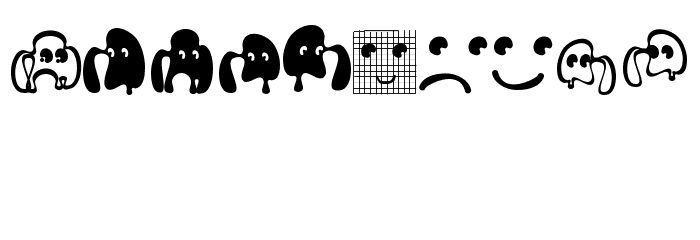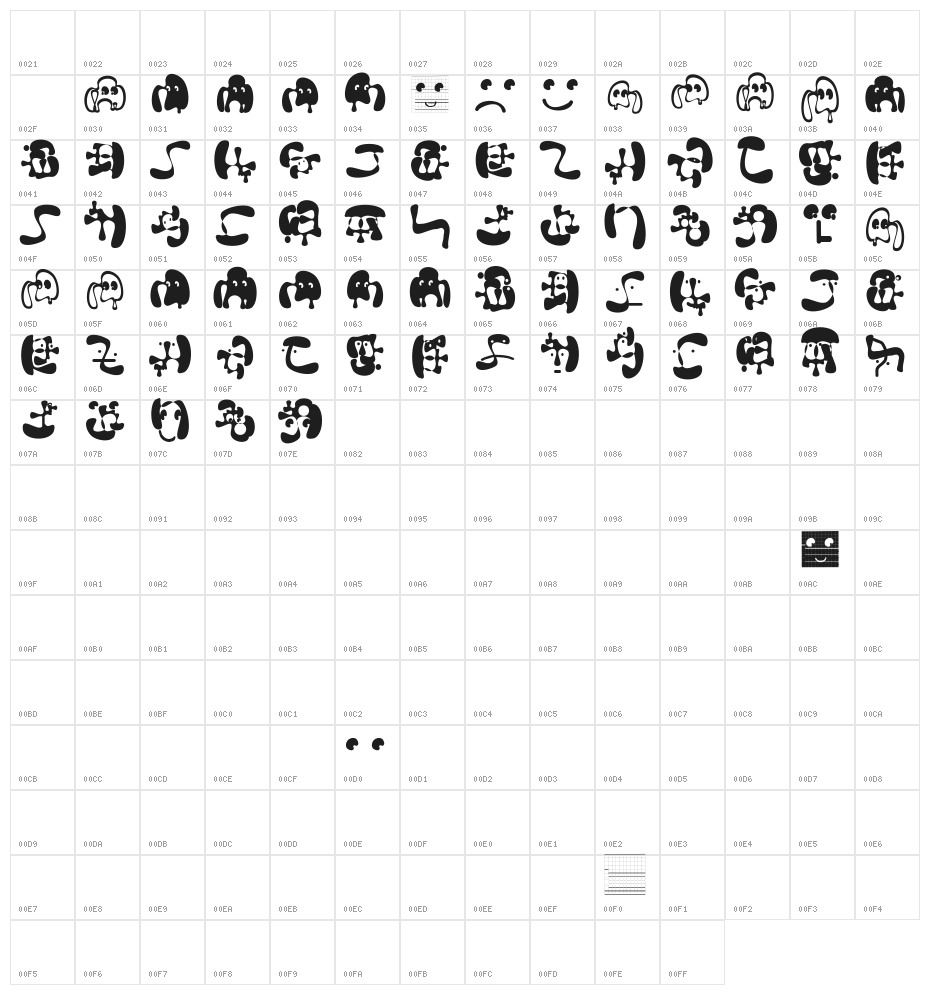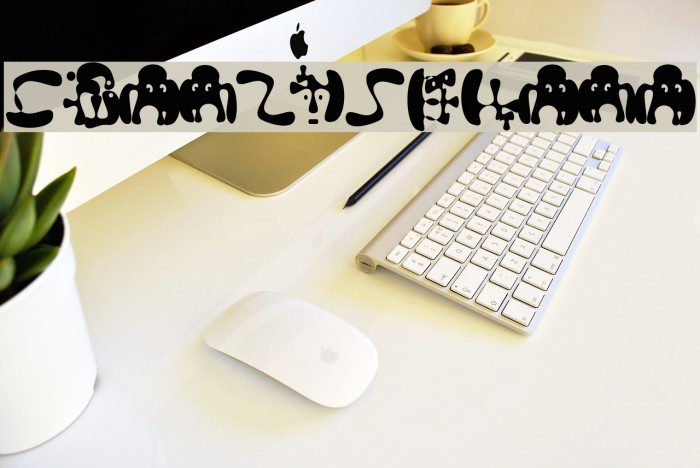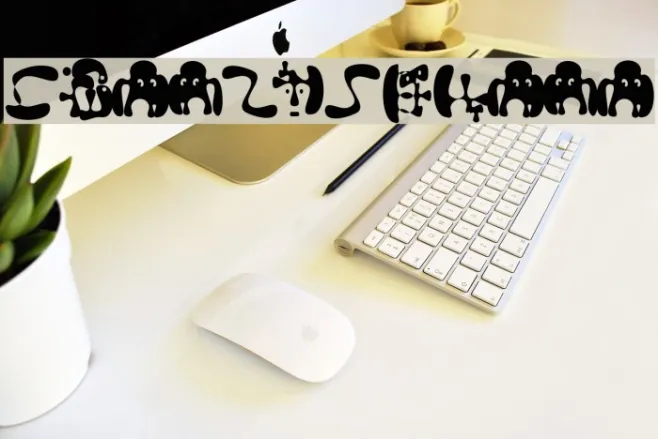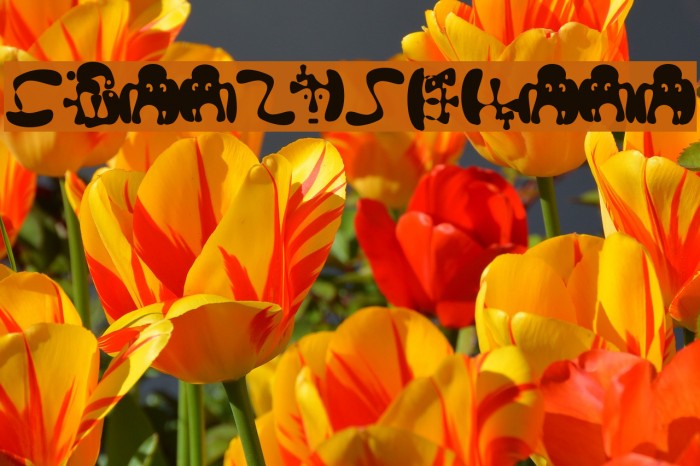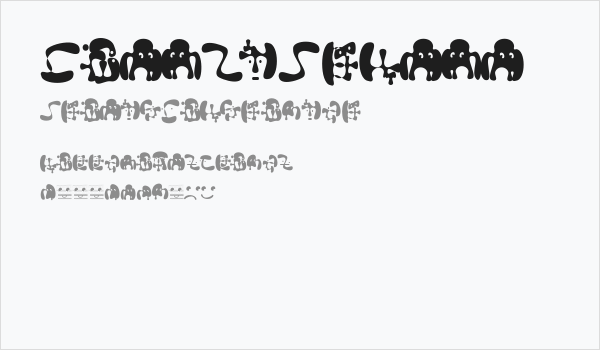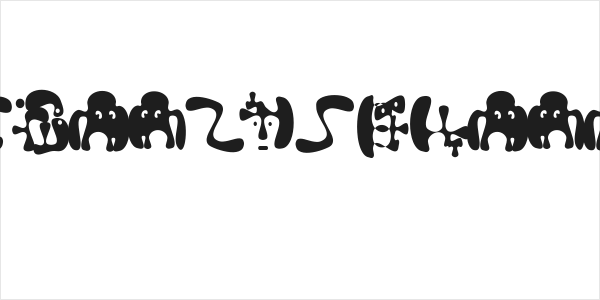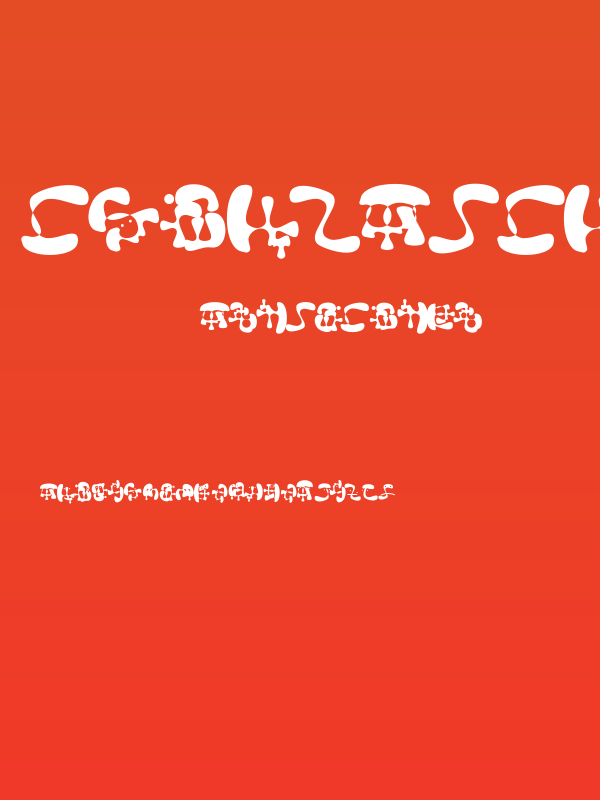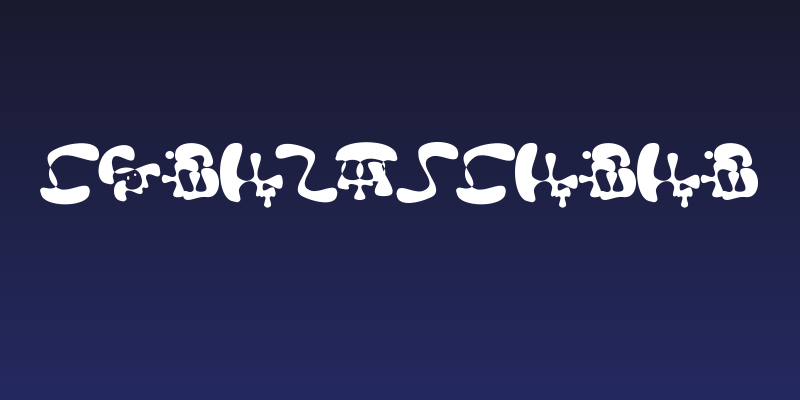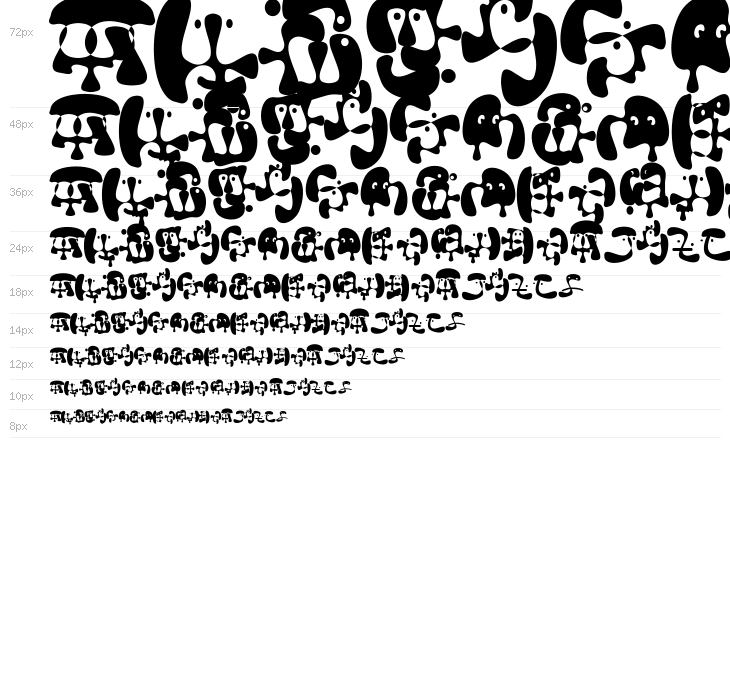
ReadItOrDada Font
ReadItOrDada Description
This font features a highly decorative and abstract style, characterized by its playful and whimsical shapes. Each character is uniquely crafted with exaggerated curves and dots, creating a sense of movement and fluidity. The font is bold and eye-catching, making it suitable for creative and artistic projects. Its distinct style may not be suitable for body text but excels in capturing attention in headlines or logos. The characters are densely packed, with tight spacing that enhances its bold appearance. The font's high contrast in stroke thickness adds to its dynamic and lively feel.